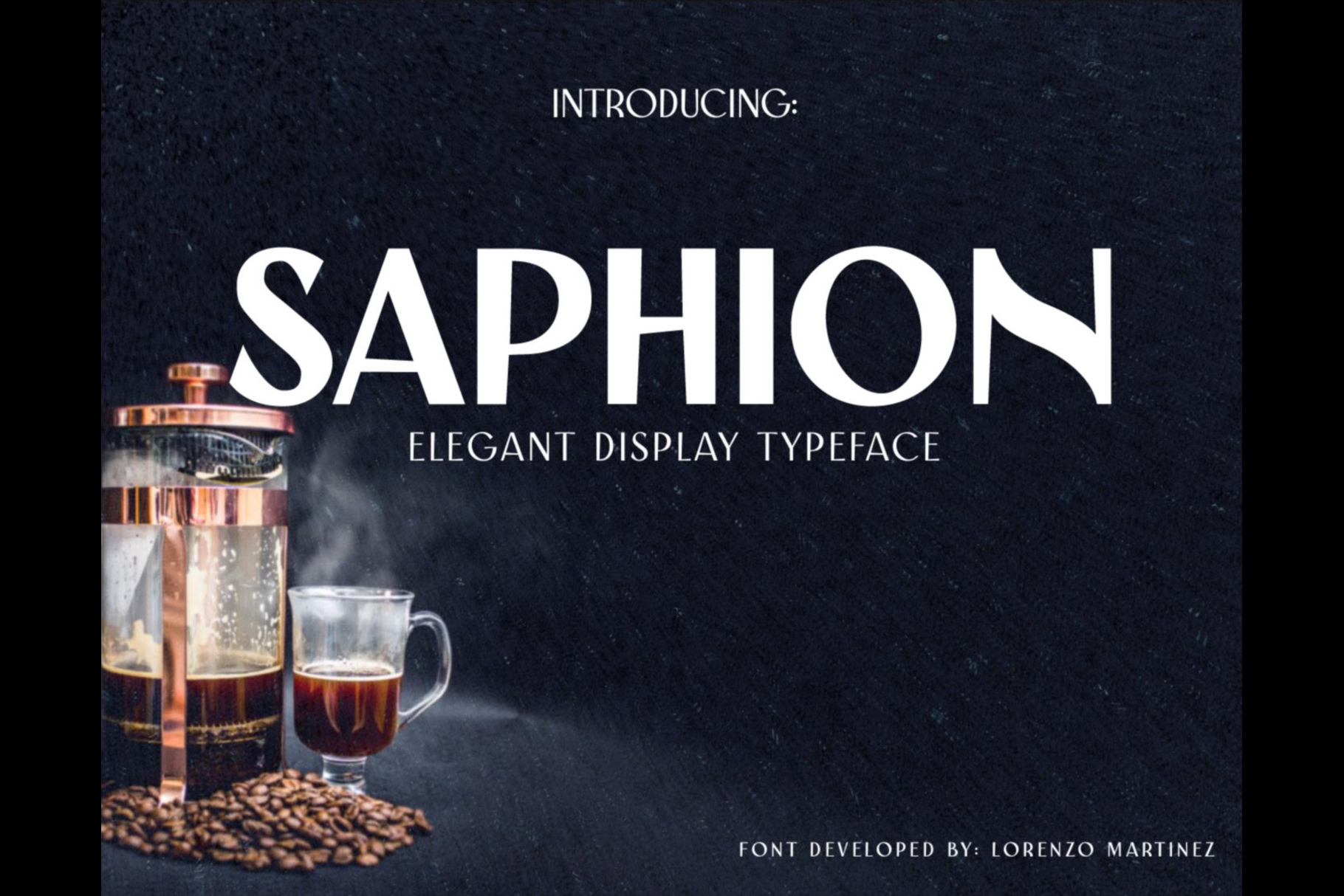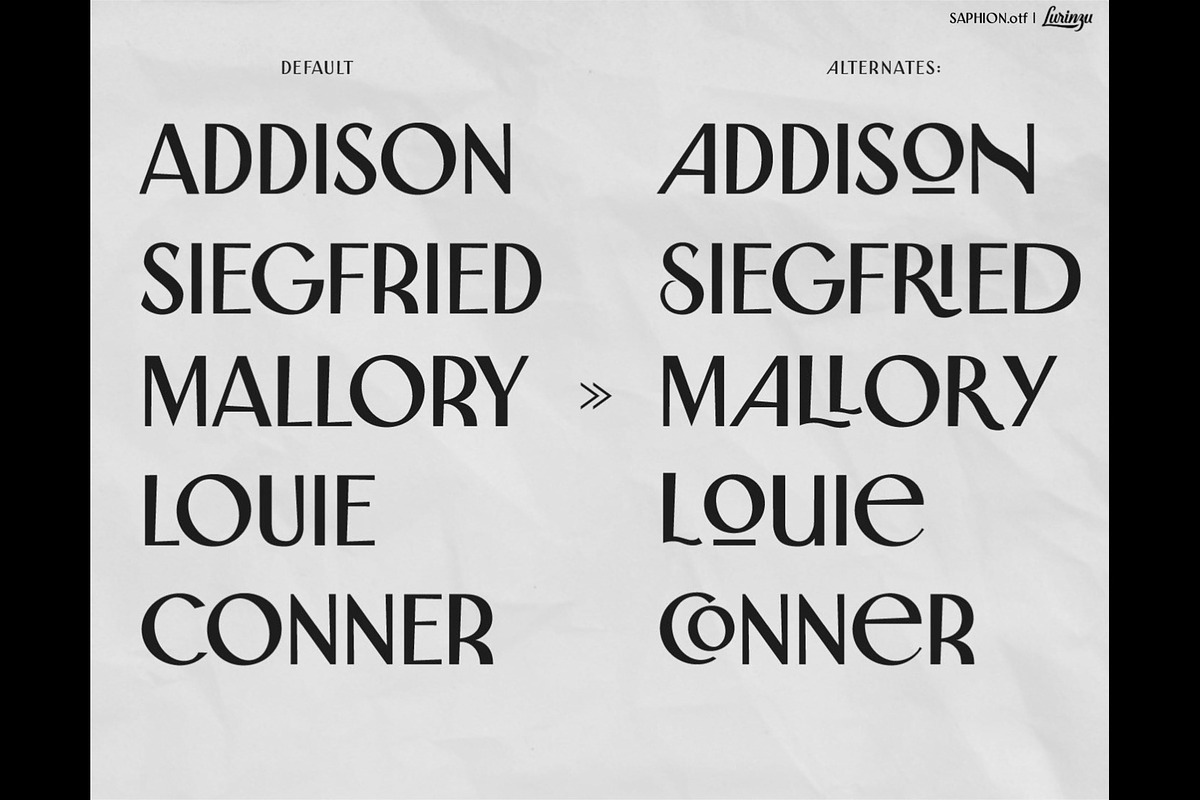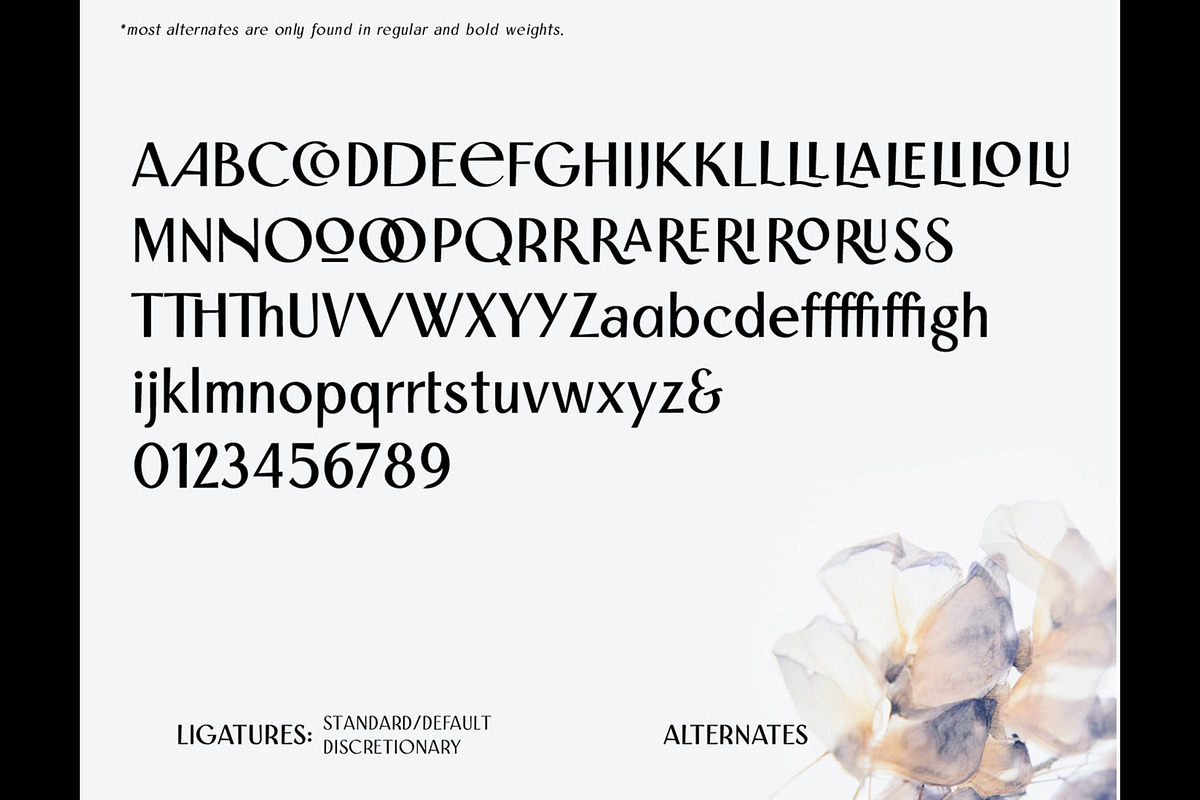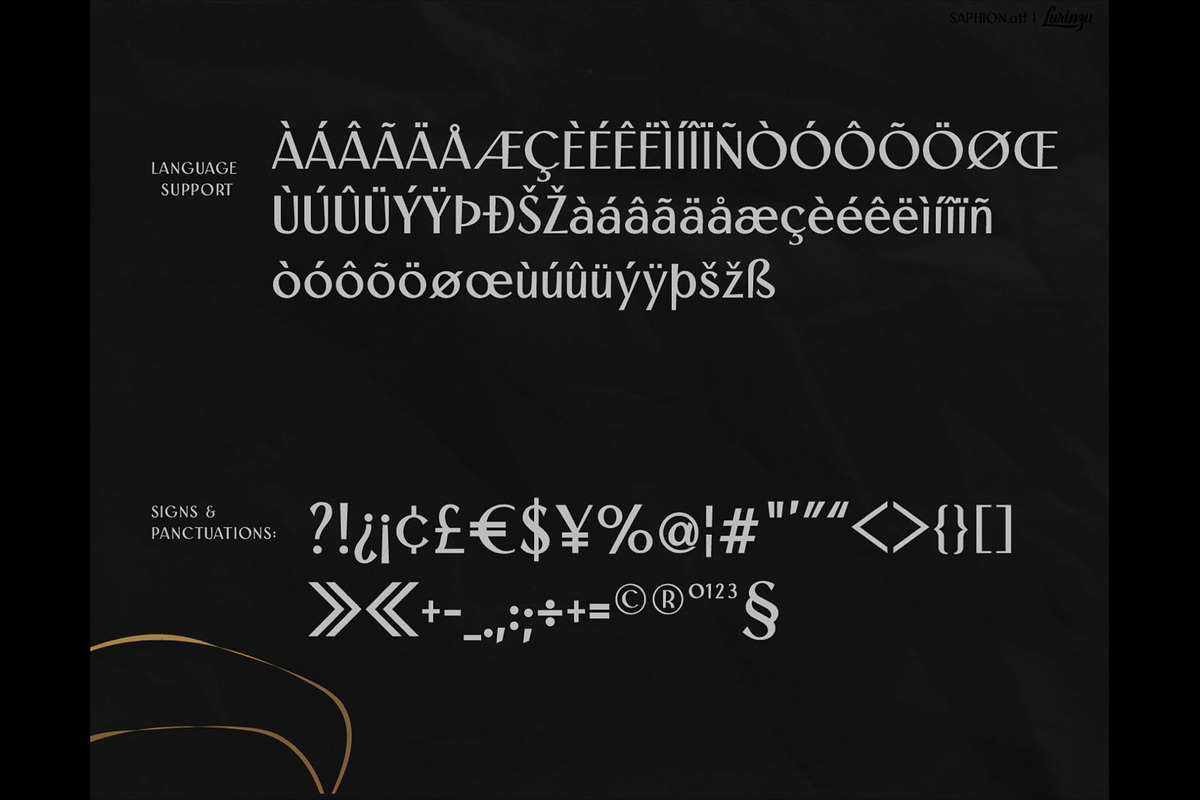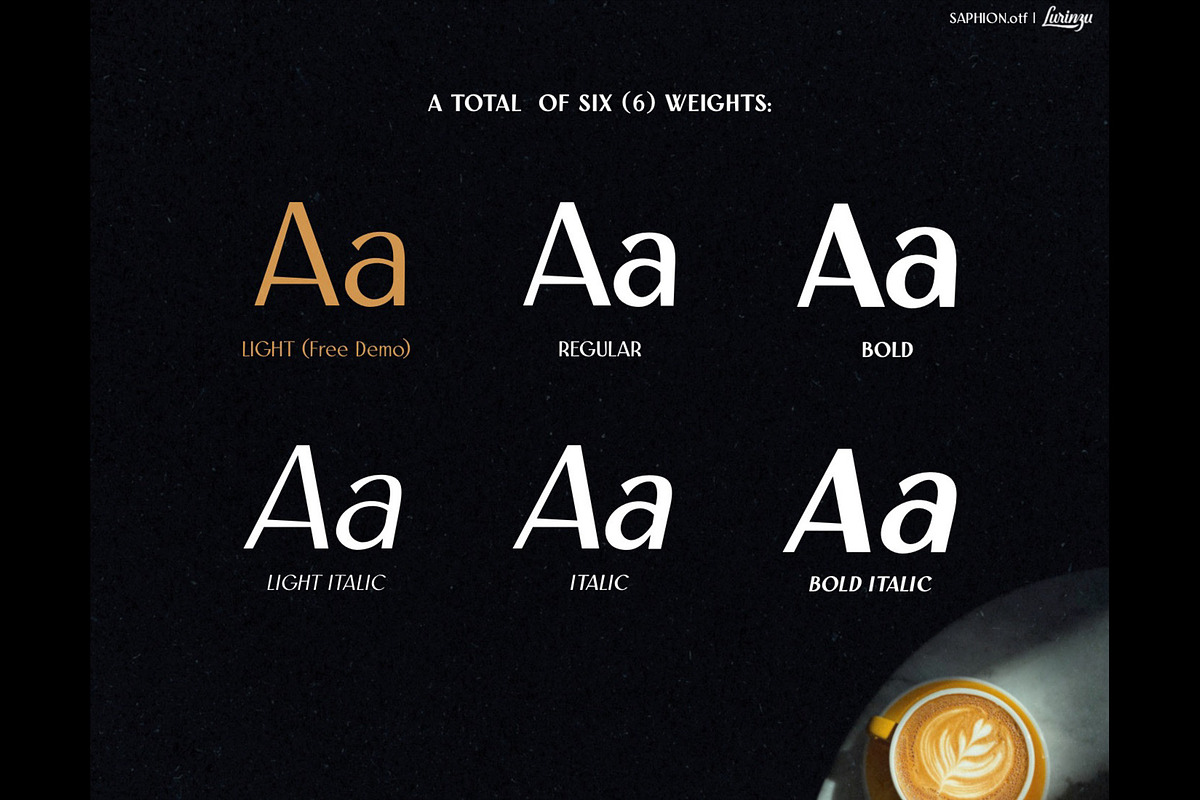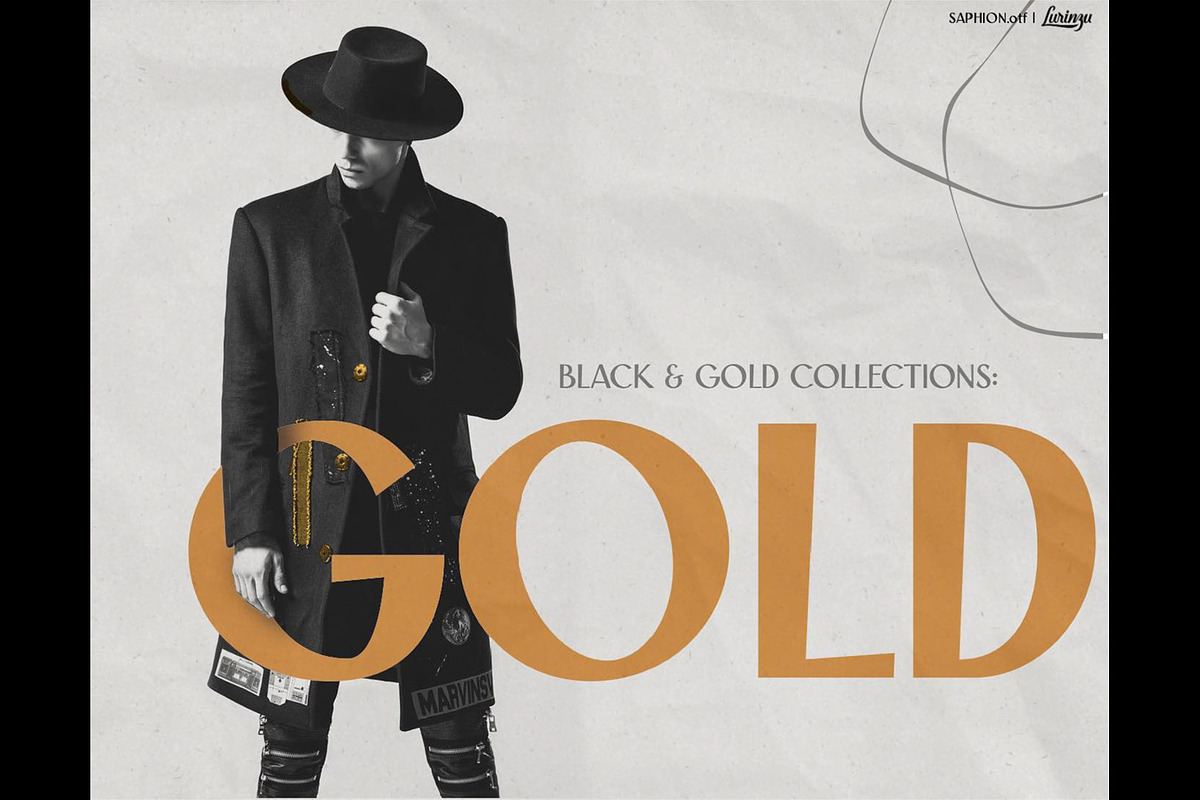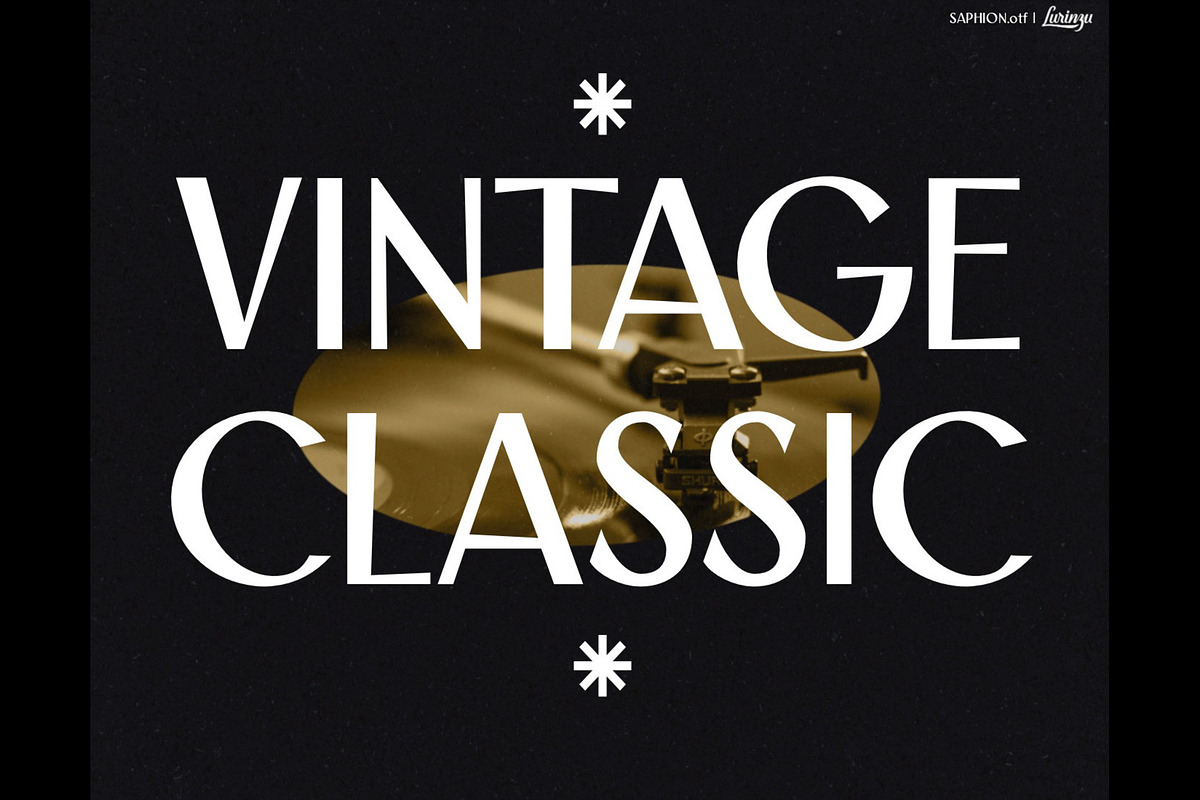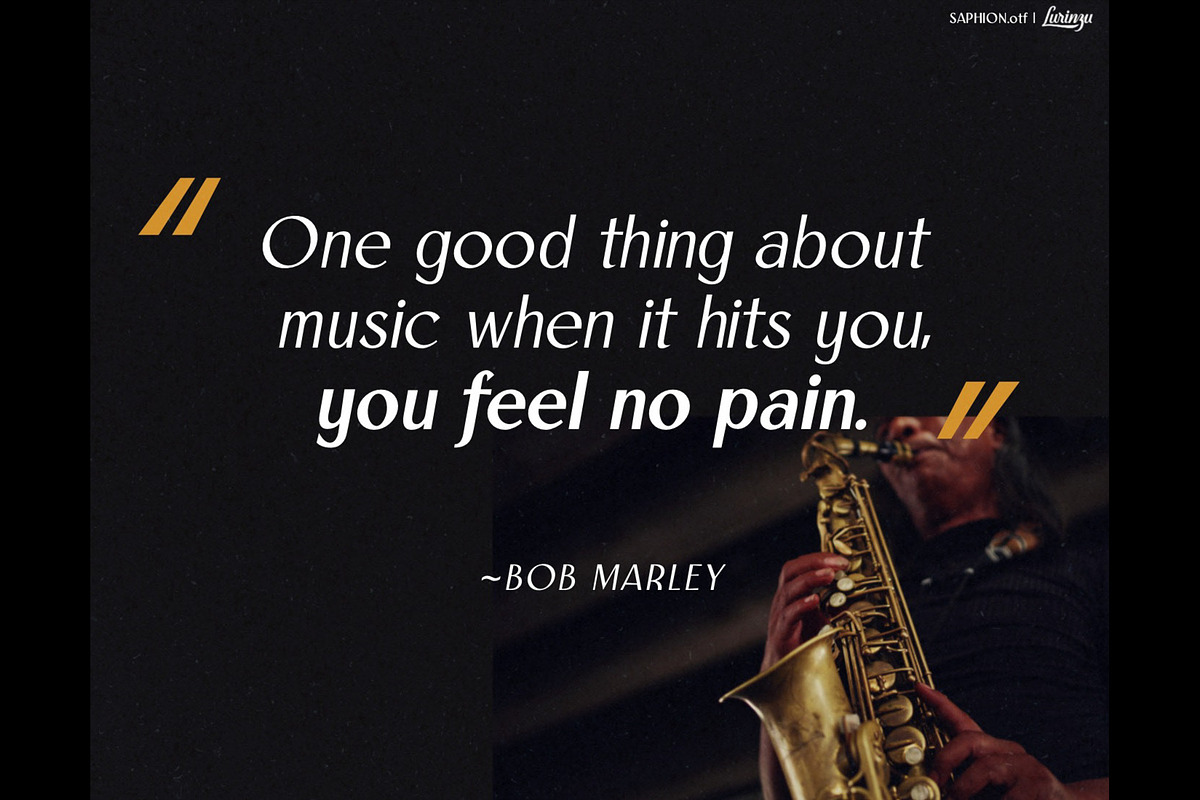
Saphion- Vintage Display Typeface
"Saphion" is an elegant san serif typeface that works well with branding, logo projects, wedding, fashion, and any other related designs.
This typeface can function as a display font as well as a legible font used in type-heavy projects like magazines & blogs etc.
*This font works well with neutral fonts like Montserrat, Gotham, Volte, Nunito sans, etc.
- This font includes letters, numbers, multilanguage support, dozens of alternate letters, and marks.